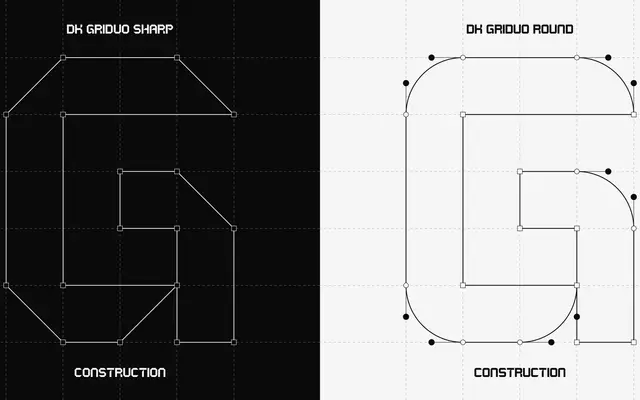
DK Griduo
A variable display typeface built on a strict mathematical grid, interpolating between sharp geometric terminals and clean rounded forms.
Built on a rigid mathematical matrix, the family offers three styles: a variable font spanning the full axis, a sharp cut with hard geometric terminals and a round cut with softened corners. The character set covers Latin Extended with a handful of OpenType alternates, including a simplified I and alternate a and o. Suited to high-impact headlines and identity work where strict geometric order is the point.
A strictly grid-based geometric display typeface with variable axis interpolating between sharp and rounded terminals; no text weights or running-copy intent, placing it firmly in the display category.